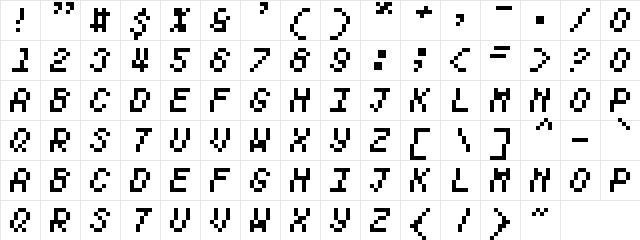
Gossamer Girls Regular
Design Context for Gossamer Girls Typeface
Gossamer Girls takes a measured approach to typography — its balanced proportions and neutral character make it a reliable workhorse for both digital and print work.